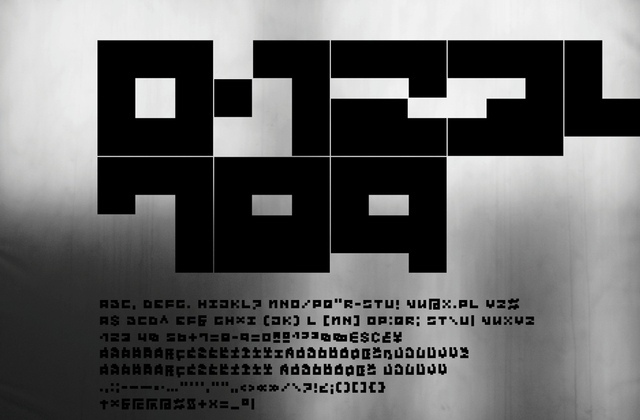
BAJT Font
BAJT Font is perfect for contemporary tech company branding, modern digital interface designs, innovative startup identities, clean corporate communications, progressive software marketing, minimalist architectural firms, cutting-edge design studios, and sophisticated technology presentations. This precise typeface excels in applications where technological clarity and modern professionalism are essential for creating authoritative and forward-thinking brand experiences that embody digital innovation.
What makes BAJT Font truly exciting is its exceptional embodiment of digital precision and contemporary design philosophy that captures the essence of modern technology and systematic thinking. The font features geometric letterforms with sharp angles and clean construction that mirror the logical structure of code and the sophisticated efficiency of digital systems. Its technical personality and systematic character create an immediate sense of competence and innovation that resonates with audiences seeking reliable technology solutions and cutting-edge digital experiences. The typeface's digital heritage and precise appeal make it perfect for brands wanting to convey expertise, innovation, and connection to the evolving landscape of technology and digital transformation.
The BAJT Font family includes comprehensive weight range from Thin to Black, complemented by condensed and extended versions that enhance its technical versatility. The font offers extensive character sets with technology symbols, coding indicators, and digital styling details that support technical communication needs. Additional graphic elements including geometric patterns, system motifs, code-inspired flourishes, and technological ornaments provide designers with complete branding tools rooted in digital innovation and systematic design principles.